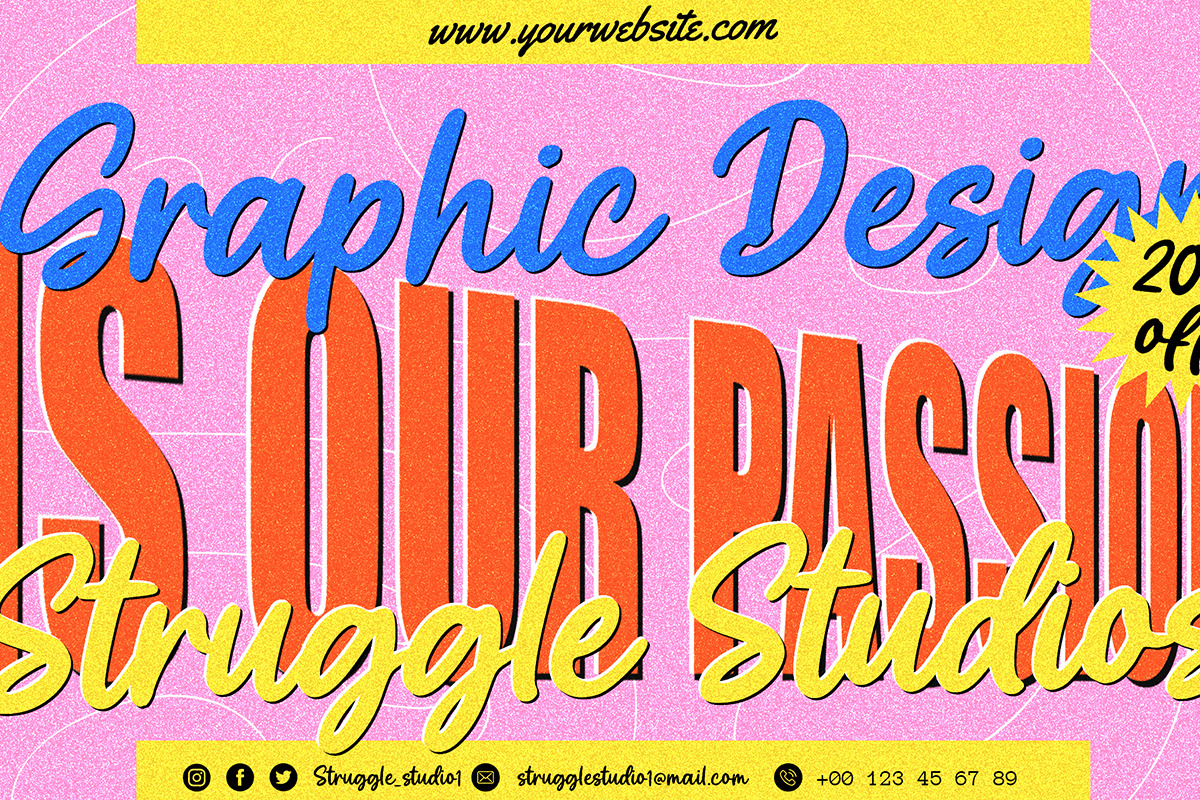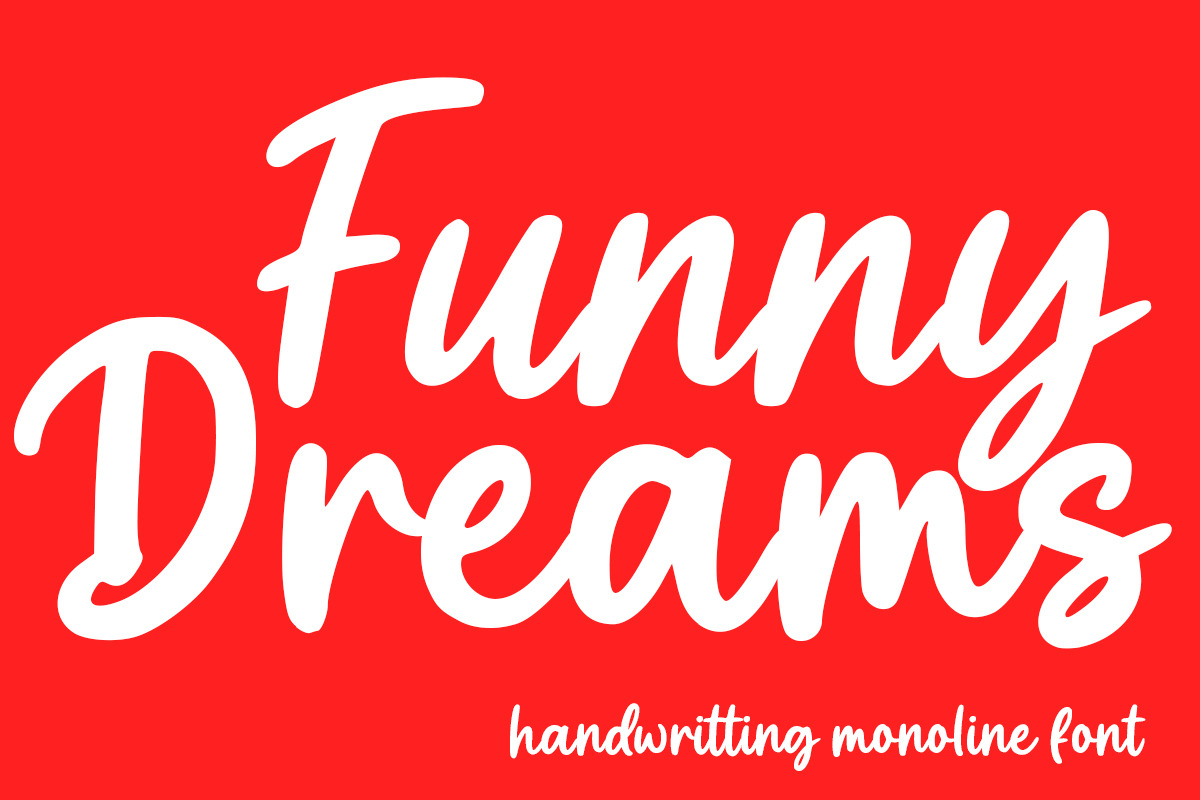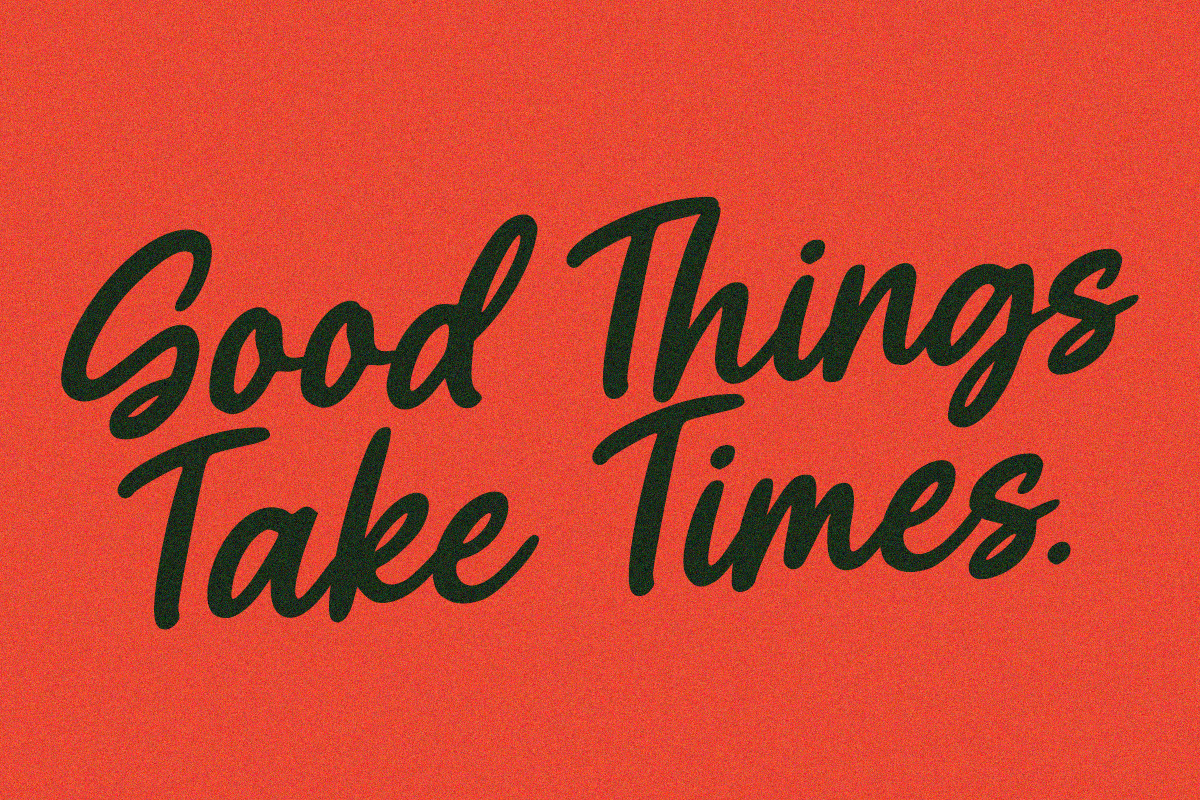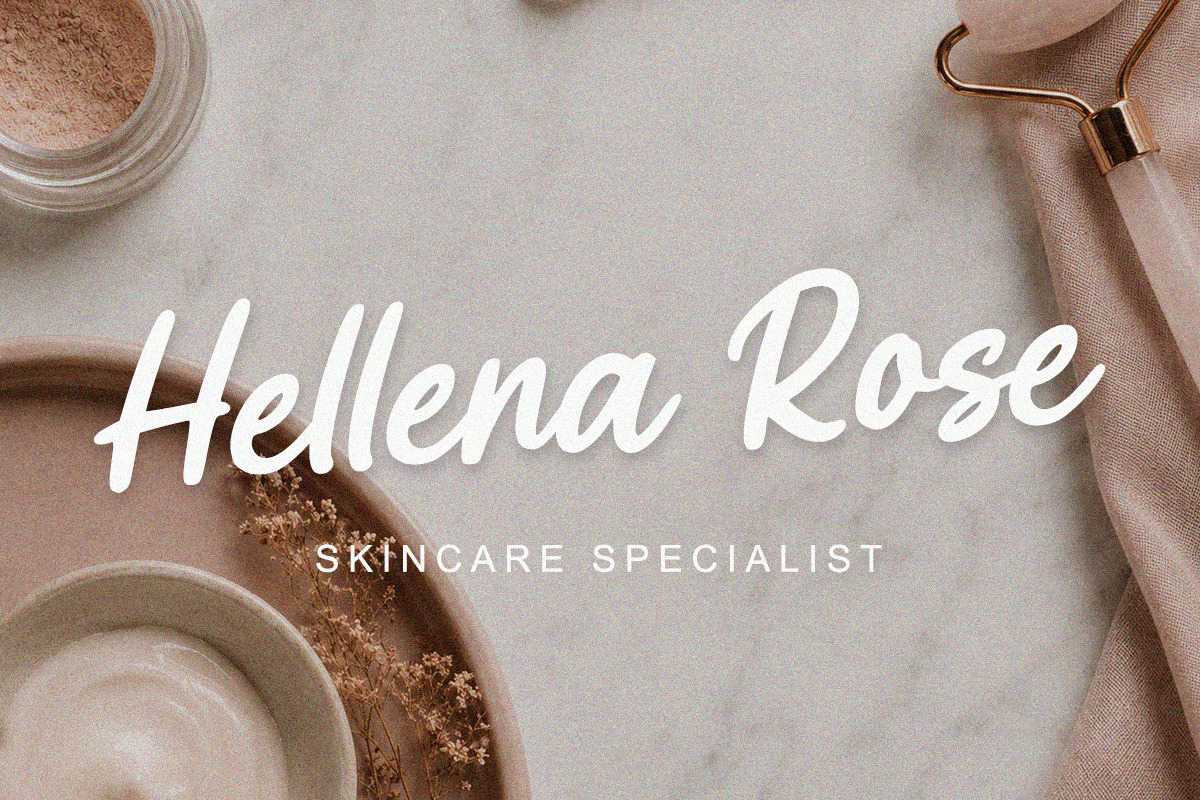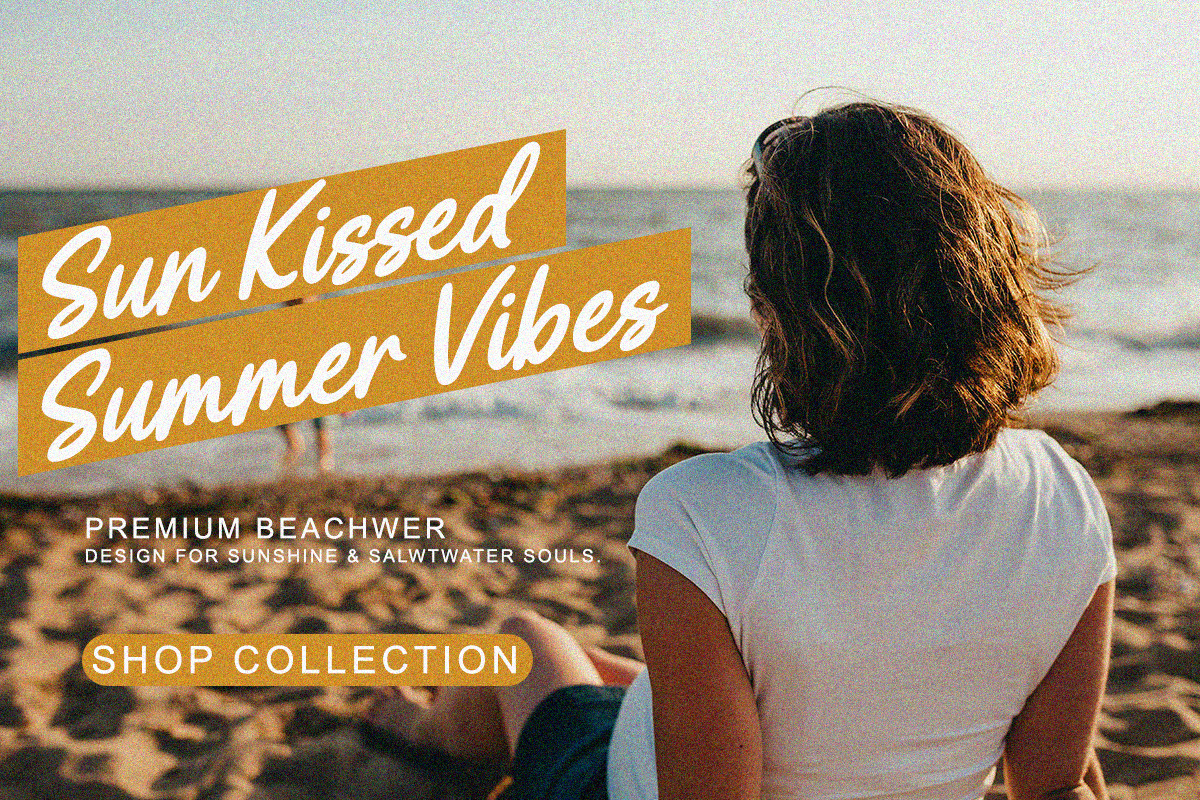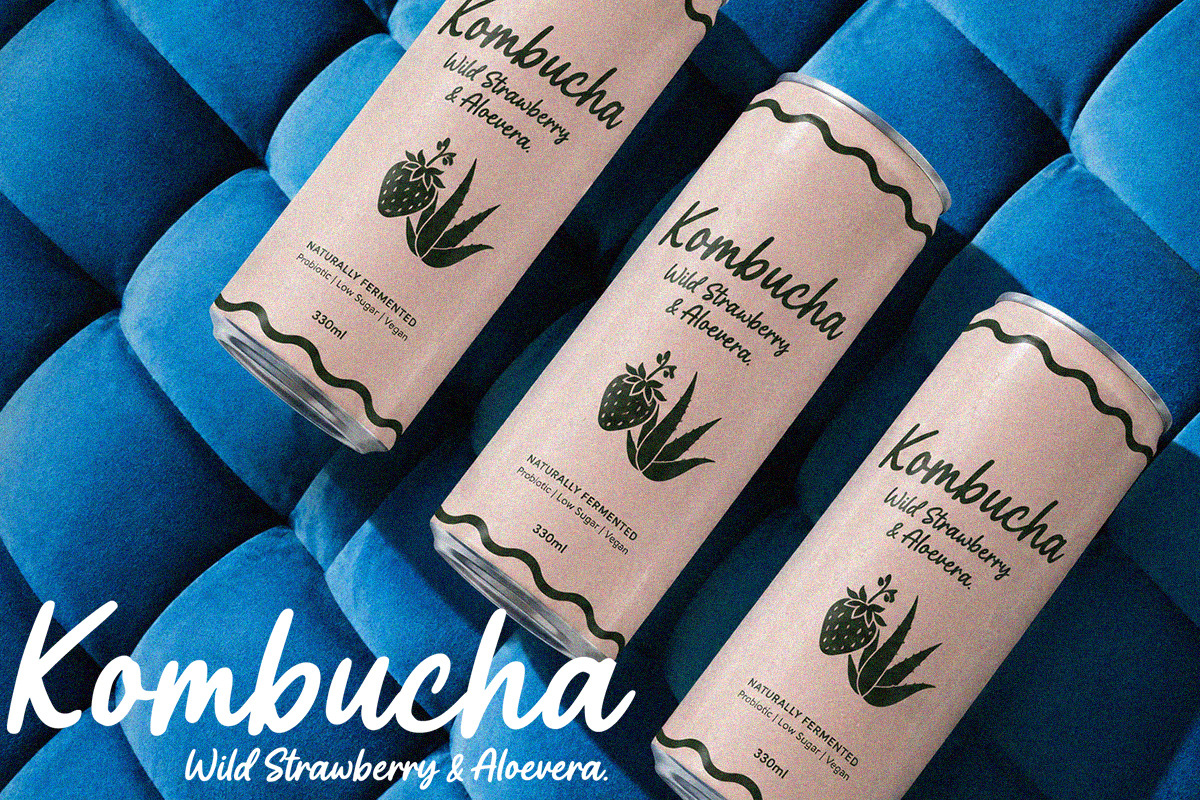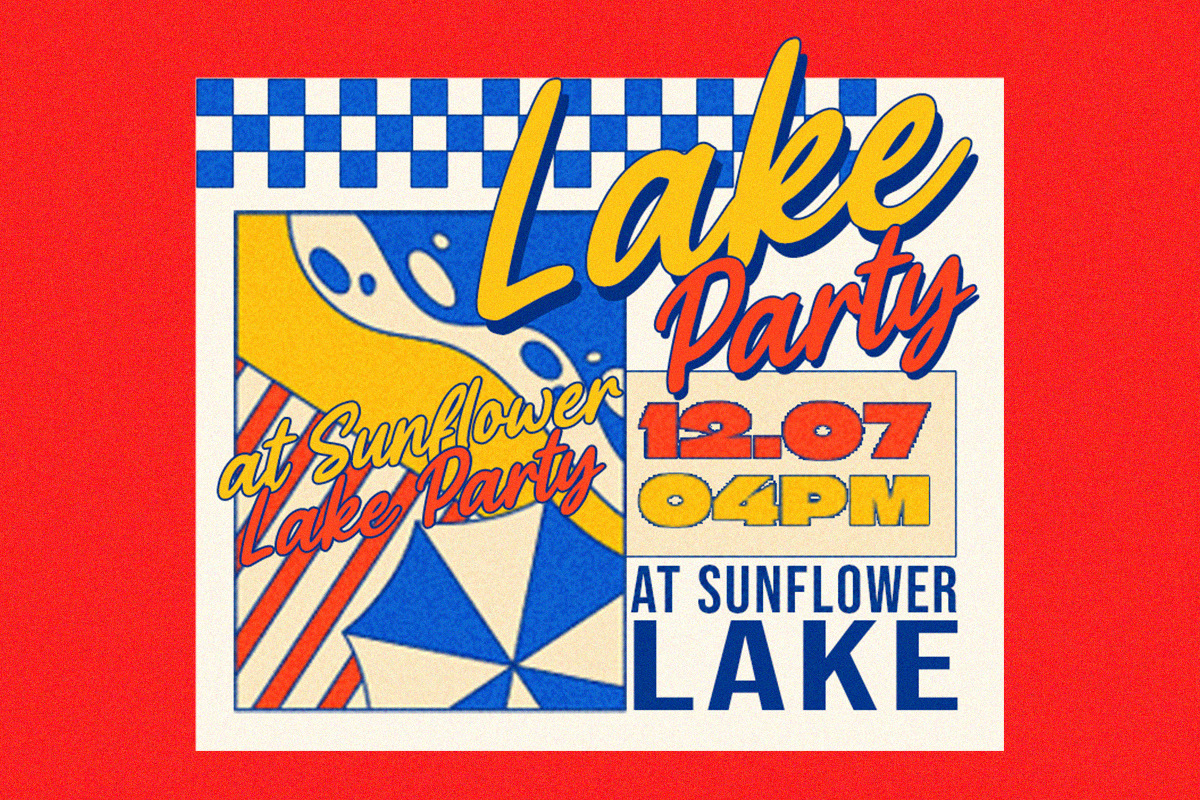
Funny Dreams
Funny Dreams is a cheerful and playful handwritten monoline font created to bring warmth, charm, and creativity to any design project. Featuring smooth flowing strokes, rounded terminals, and a natural hand-drawn appearance, this font delivers a friendly and inviting look while maintaining excellent readability.
Its bold monoline construction and lively letterforms make it ideal for children's products, playful branding, packaging, greeting cards, social media graphics, posters, t-shirt designs, stickers, invitations, and creative craft projects. The authentic handwritten style adds a relaxed and energetic touch that helps designs stand out effortlessly.
With its fun curves, whimsical character, and modern retro appeal, Funny Dreams brings a sense of joy, imagination, and positivity to every composition. Whether used for eye-catching headlines or charming brand applications, this font creates memorable visuals with a distinctive handcrafted feel.
Kids Branding & Products
Social Media Content
Posters & Advertising
T-Shirt & Merchandise Design
Greeting Cards & Invitations
Craft & DIY Projects
Quotes & Typography Art
Fun Editorial Layouts